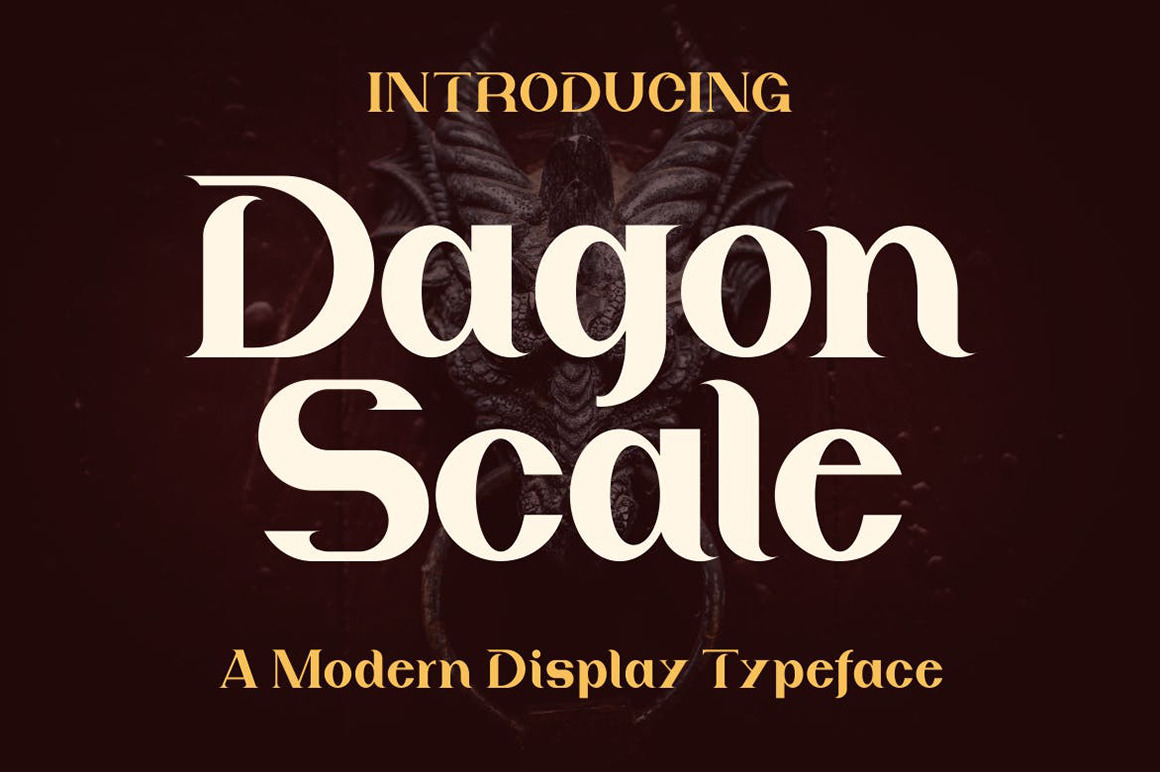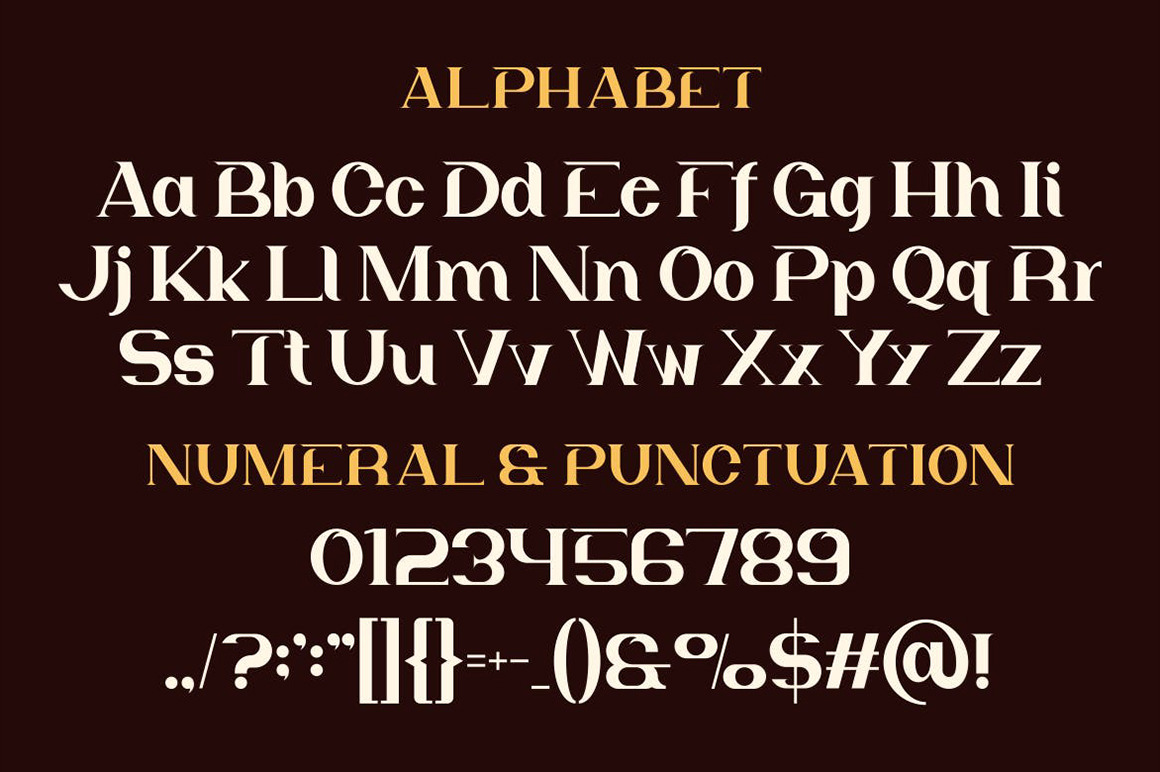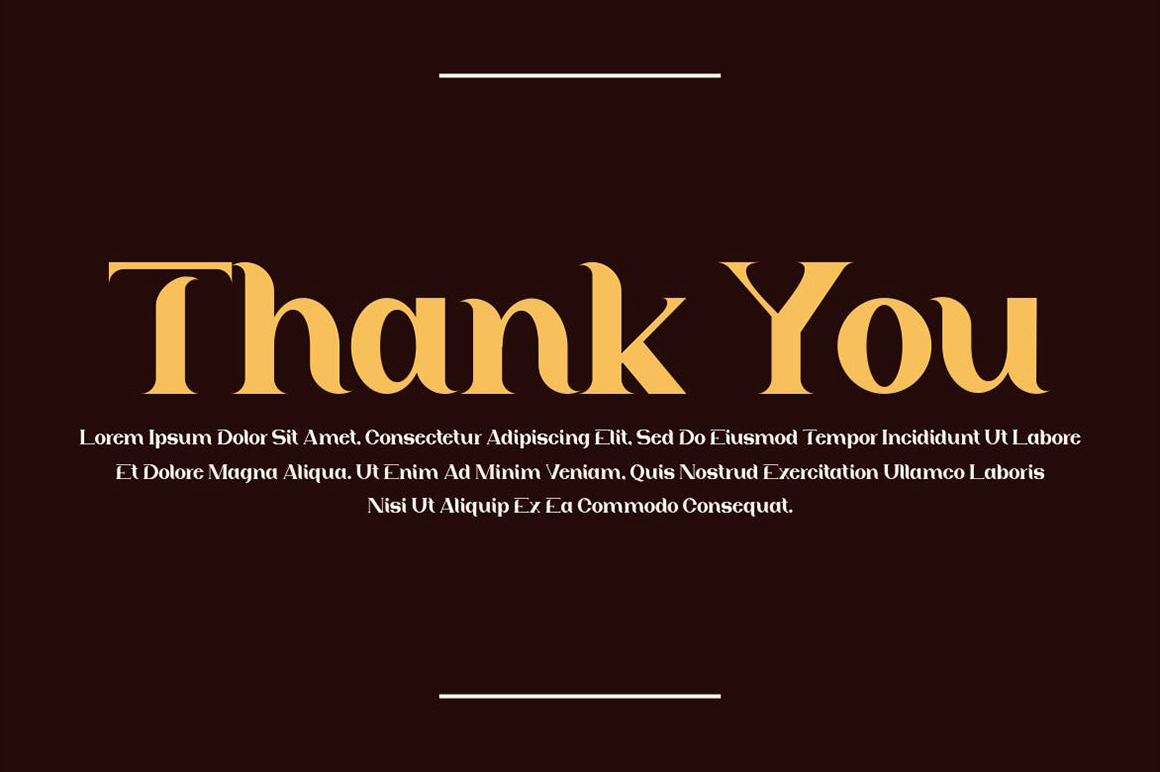
Dagon Modern Typeface Font
Introducing our new product Dagon Scale Font - Modern Font
Dagon Scale Font - Modern Font is a bold and authentic display font. The font is suitable for any branding project like logo, t-shirt printing, and many more. outstanding in a wide range of contexts.